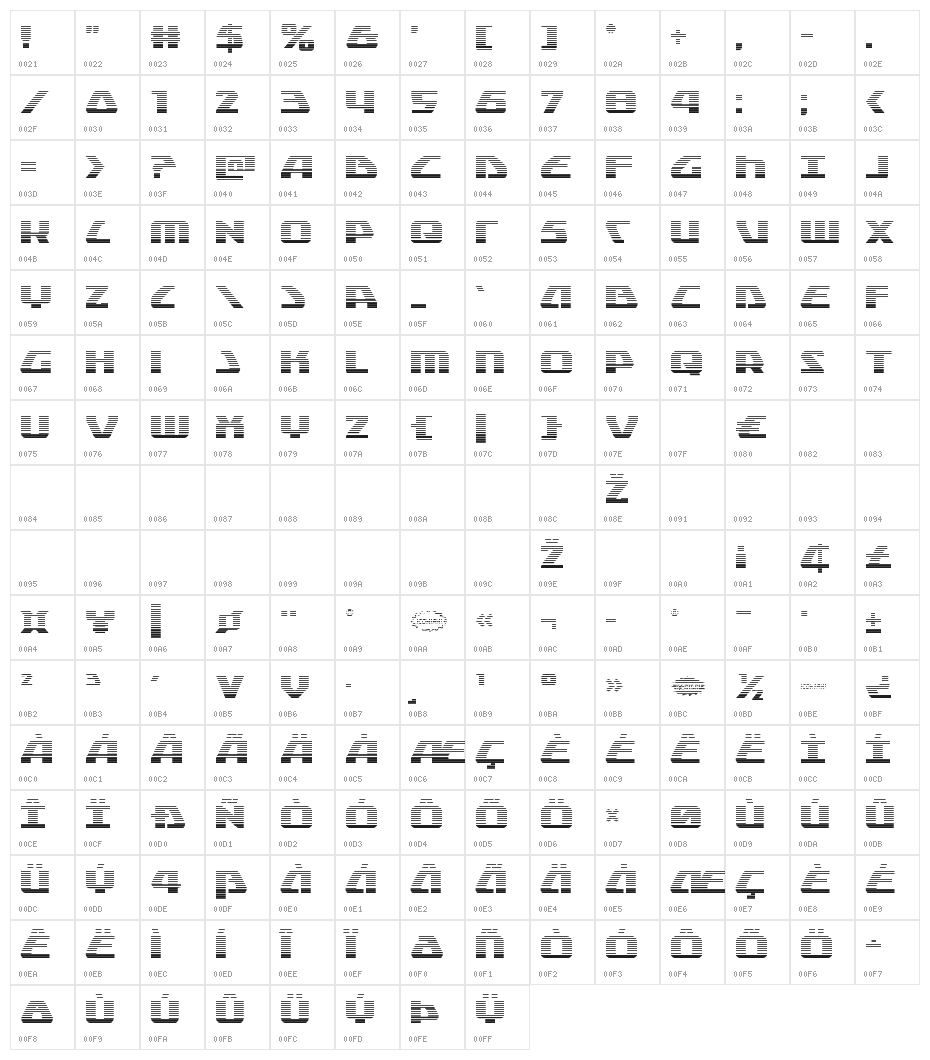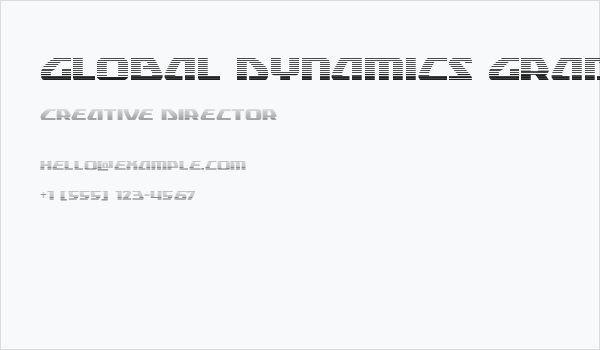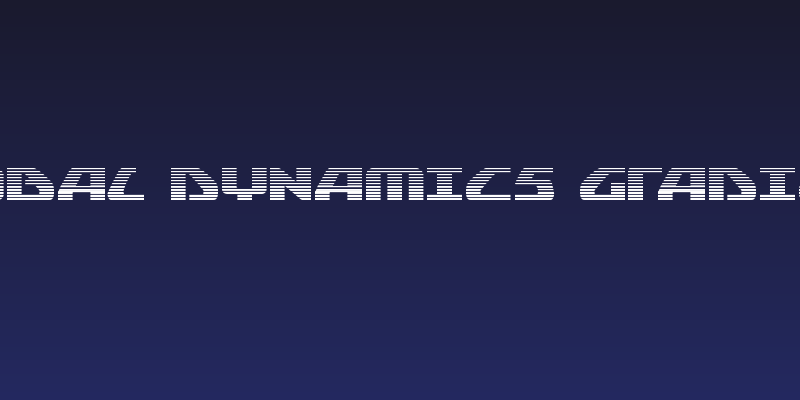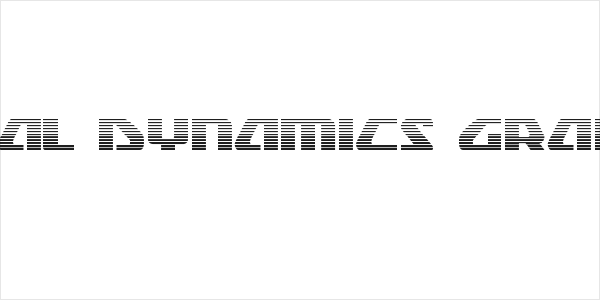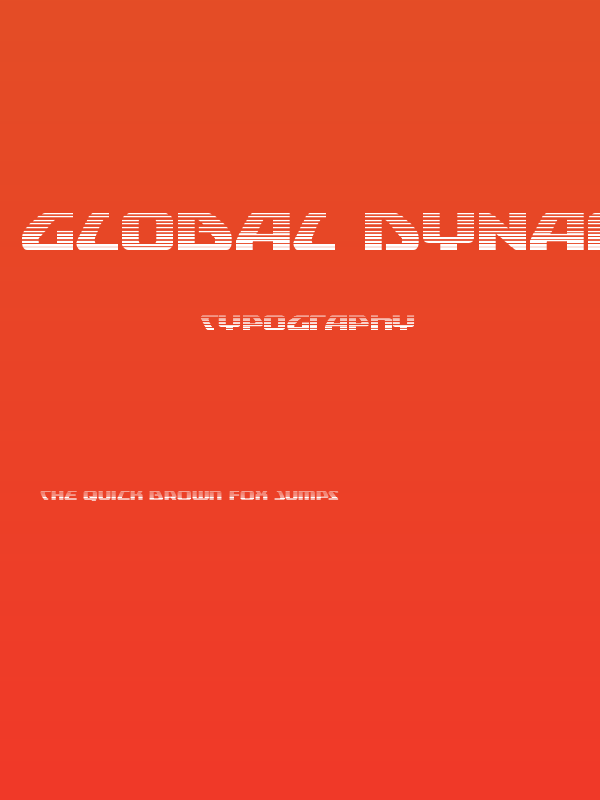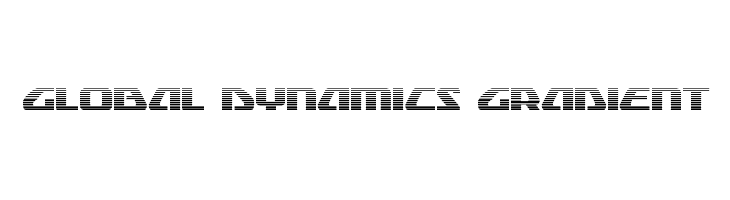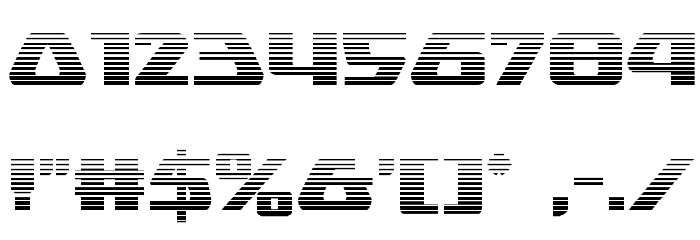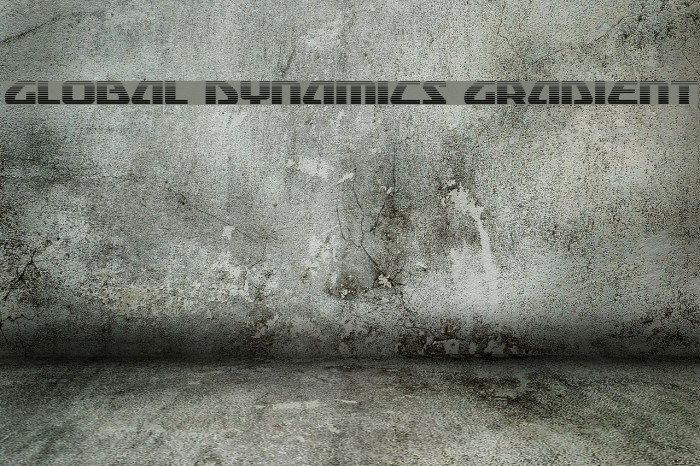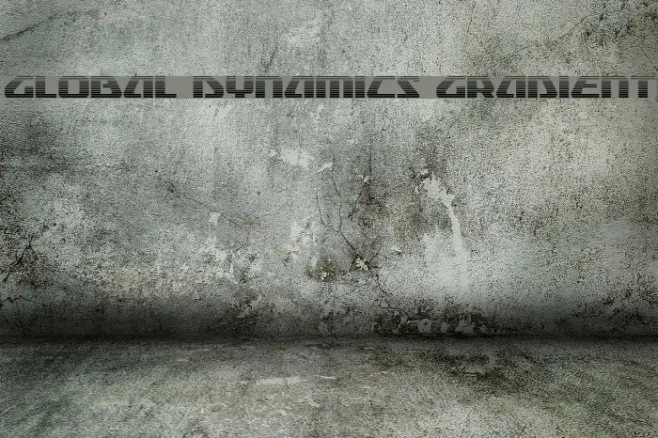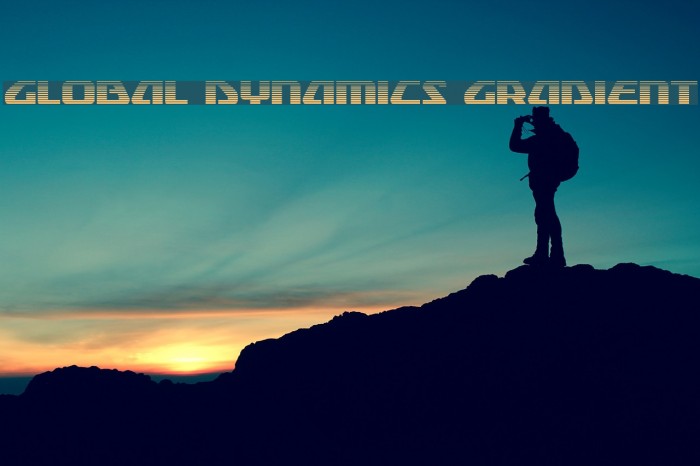
Global Dynamics Gradient Font
Global Dynamics Gradient Description
This font features a futuristic and dynamic design, characterized by its bold, geometric shapes and horizontal line patterns that create a sense of movement and energy. The uppercase letters are constructed with a series of parallel lines, giving them a striped appearance that adds depth and texture. The font's unique style makes it stand out, with each character maintaining a consistent width and height, contributing to a uniform and cohesive look. The numbers and special characters follow the same design principles, ensuring a harmonious visual experience across all elements. The font's modern and innovative aesthetic is ideal for projects that require a bold and eye-catching typeface.
| Proposed Projects | Ideal for technology branding, sci-fi movie posters, video game titles, and modern advertising campaigns. |